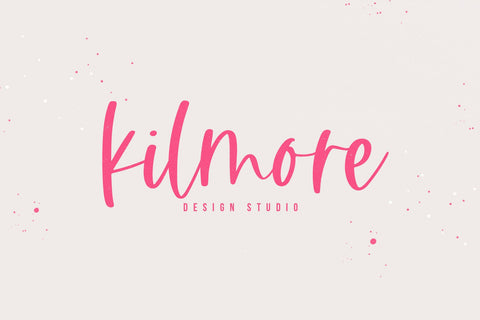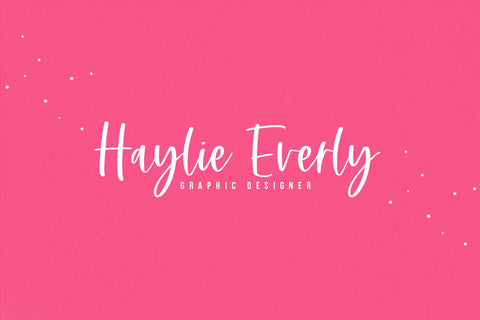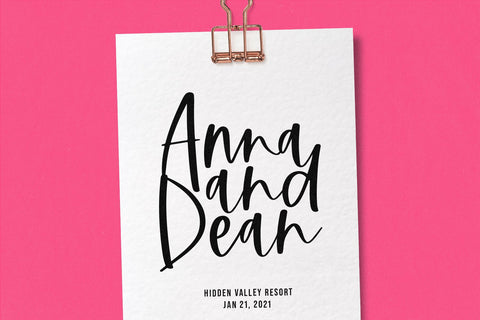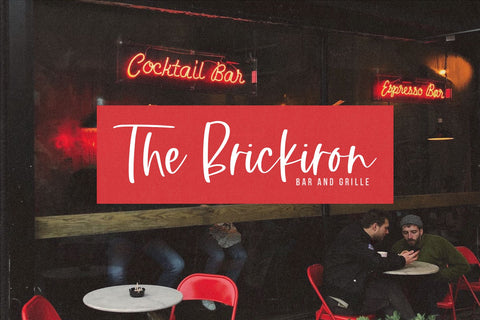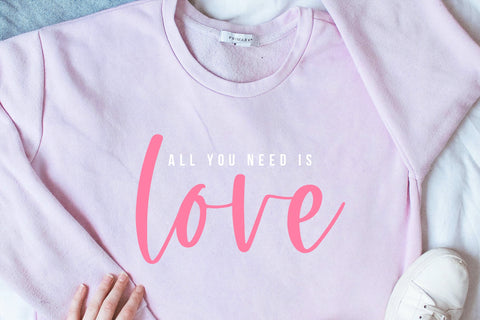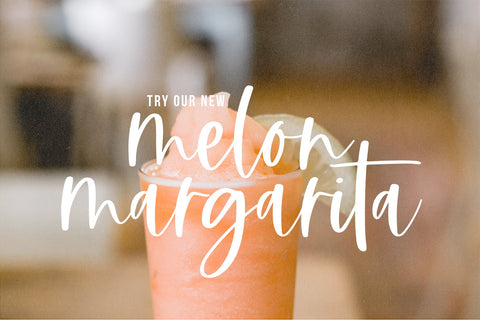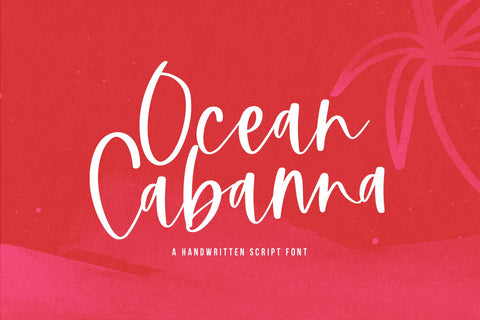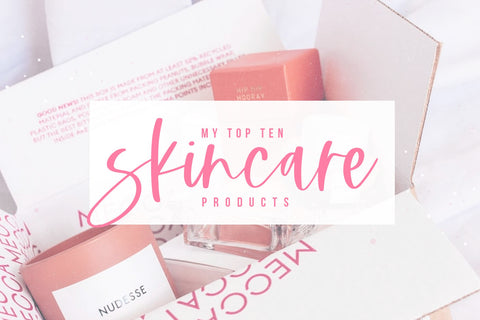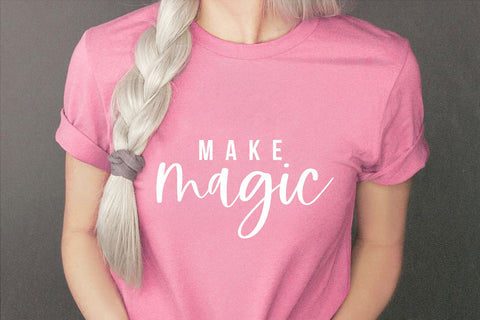
Ocean Cabanna - Handwritten Script Font
Ocean Cabanna is a modern handwritten script font!
This font is perfect for quotes, shirt designs, websites, branding, children's designs, blogs, logos, invitations and more!
Most accent characters included.